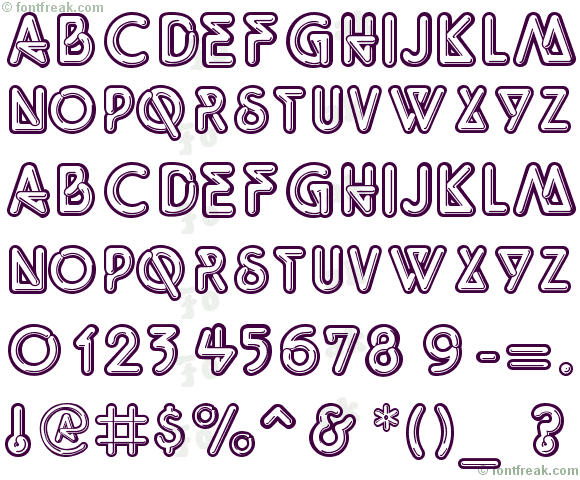
Neon Lights
About Neon Lights
The Neon Lights font by Allen R. Walden is a striking display typeface that captures the vibrant essence of neon signage. This decorative font features bold, rounded characters that mimic the look of illuminated lights, making it an eye-catching choice for various creative projects. The stroke weight is consistent throughout, with minimal contrast that adds to its playful appearance. The spacing between letters is well-balanced, ensuring readability while maintaining a lively aesthetic. Decorative elements, such as the rounded edges and playful curves, enhance its unique personality, making it perfect for grabbing attention.
Best suited for creative endeavors, the Neon Lights font is ideal for use in movie posters, event flyers, nightclub advertisements, and social media graphics. Its lively style resonates particularly well with audiences looking to convey energy and excitement, making it a fantastic choice for graphic designers and content creators. Small business owners in the entertainment and hospitality sectors will also find this font beneficial for branding and promotional materials, as it helps to create a memorable visual identity.
What sets the Neon Lights font apart is its playful yet professional design, which can effortlessly transform ordinary text into an artistic statement. Whether used in a bright, colorful setting or a sleek, modern design, this font adds a dynamic flair that captures the spirit of nightlife and entertainment, making it a standout choice for various applications.